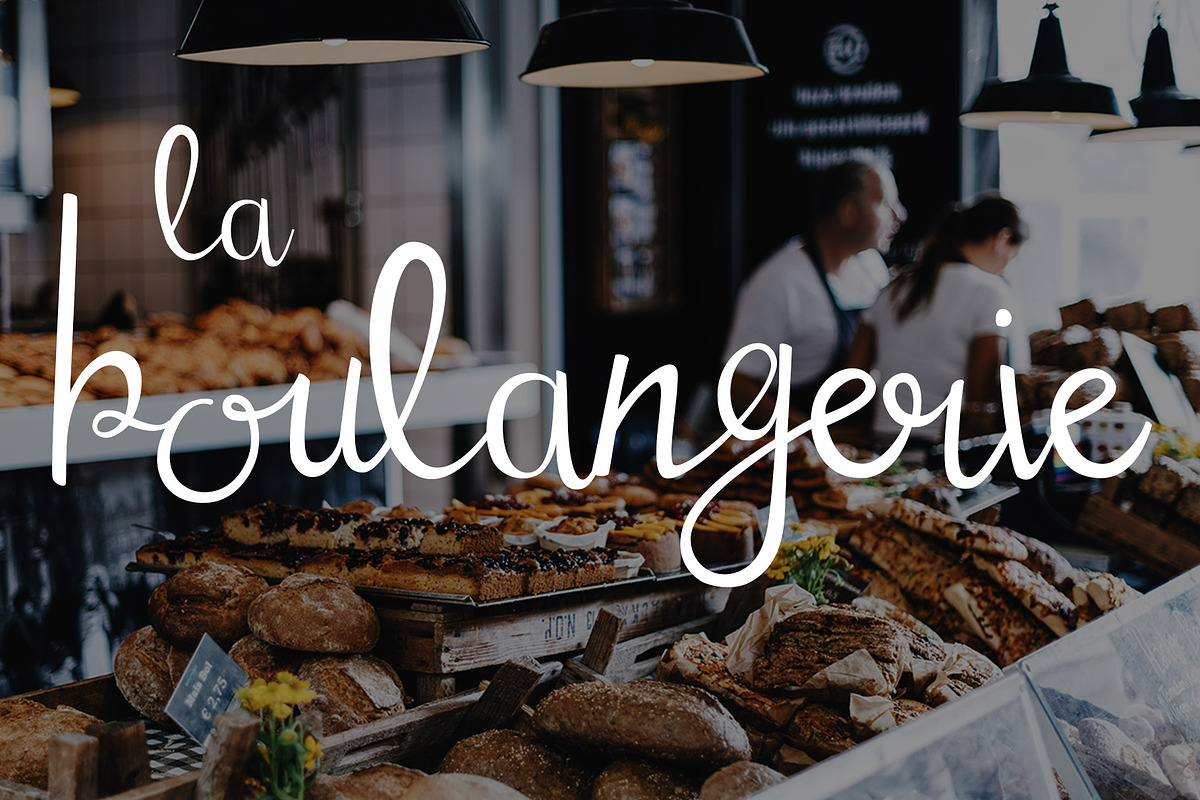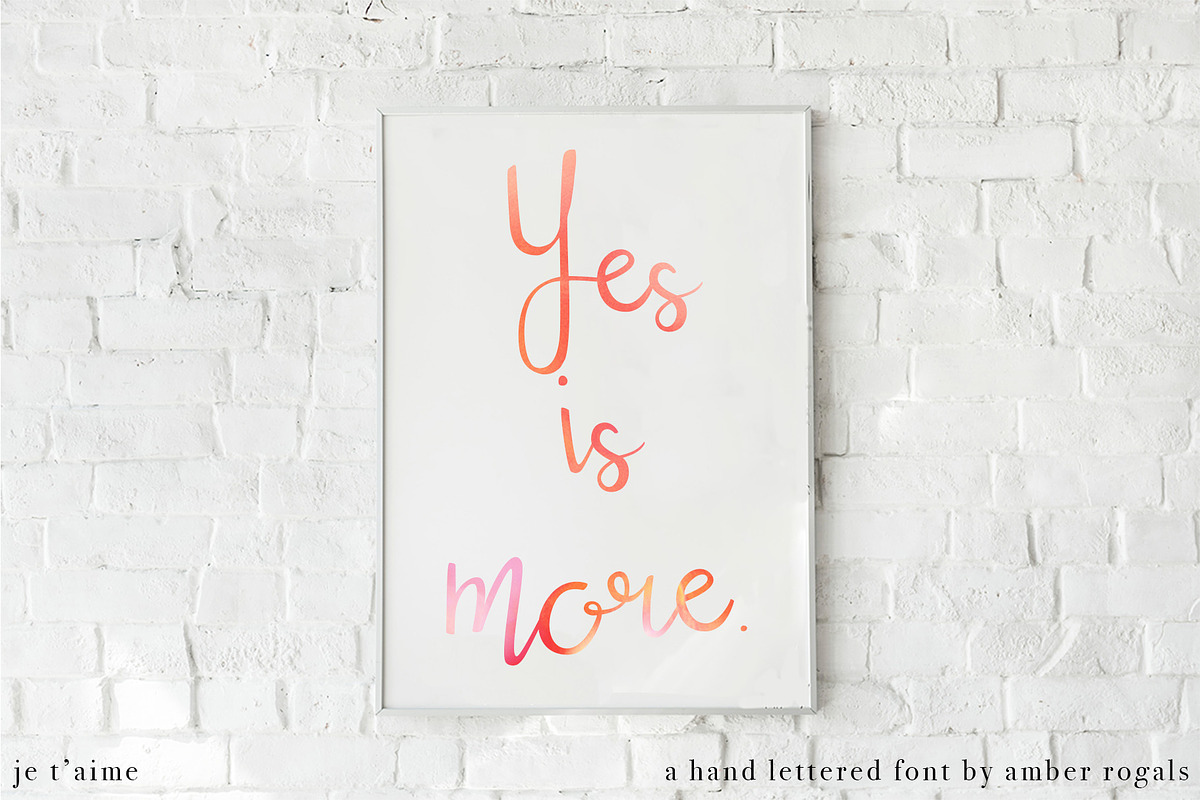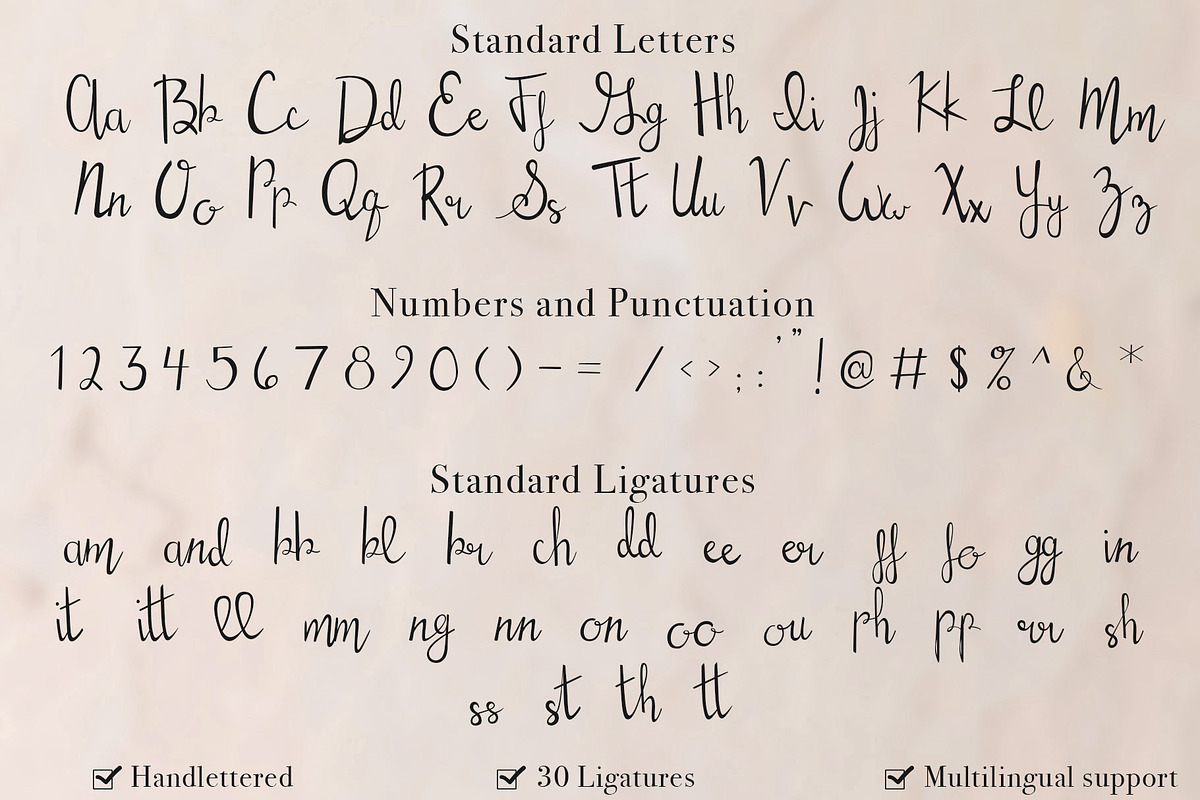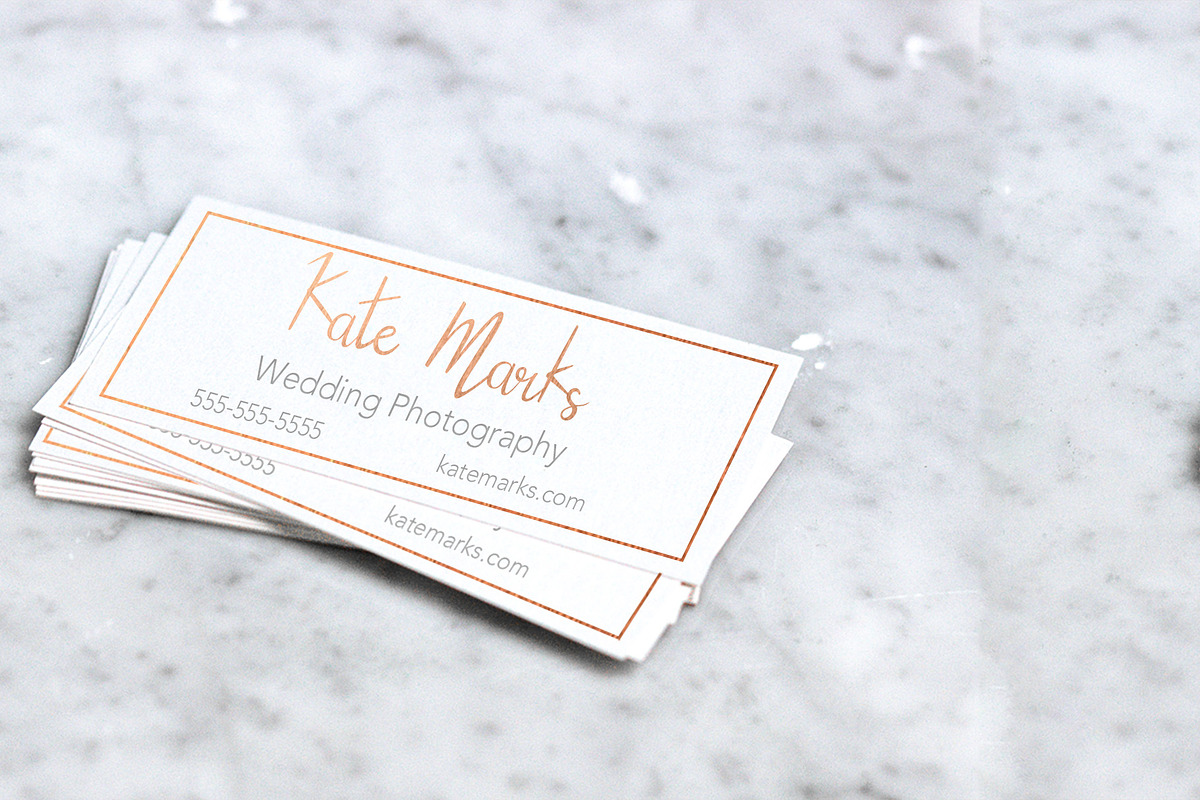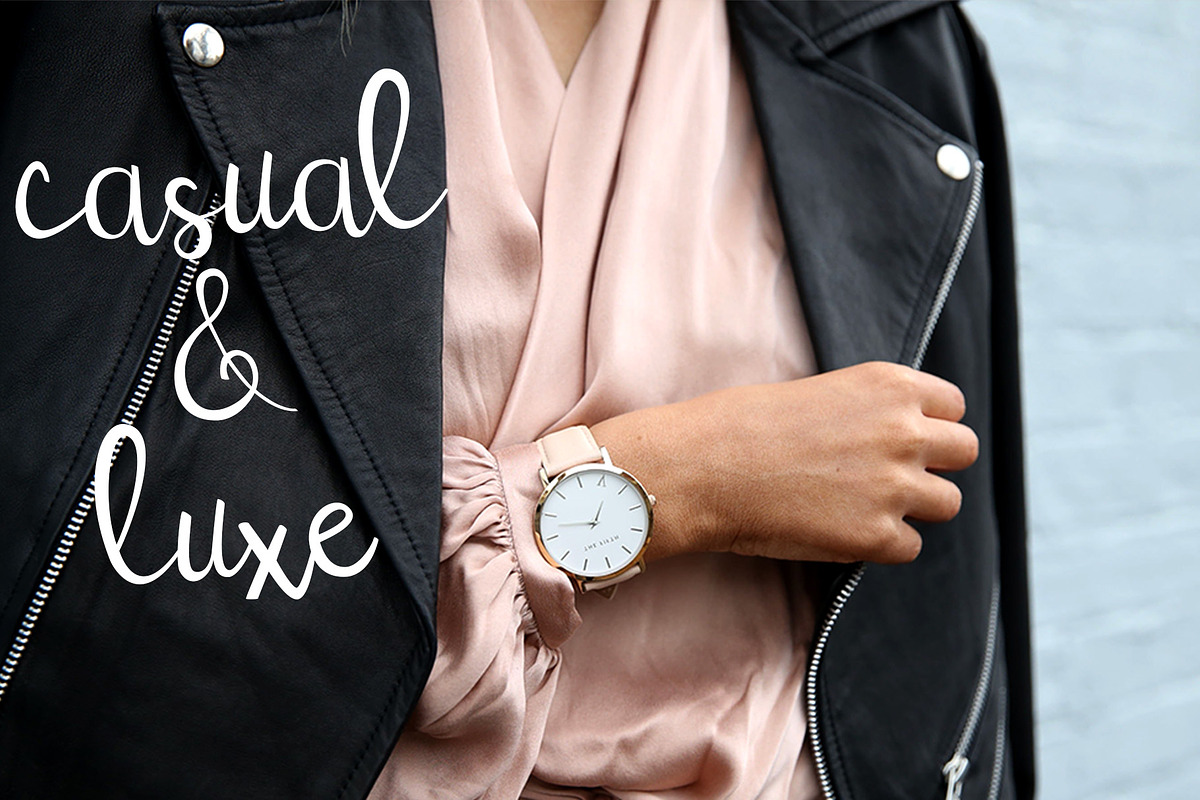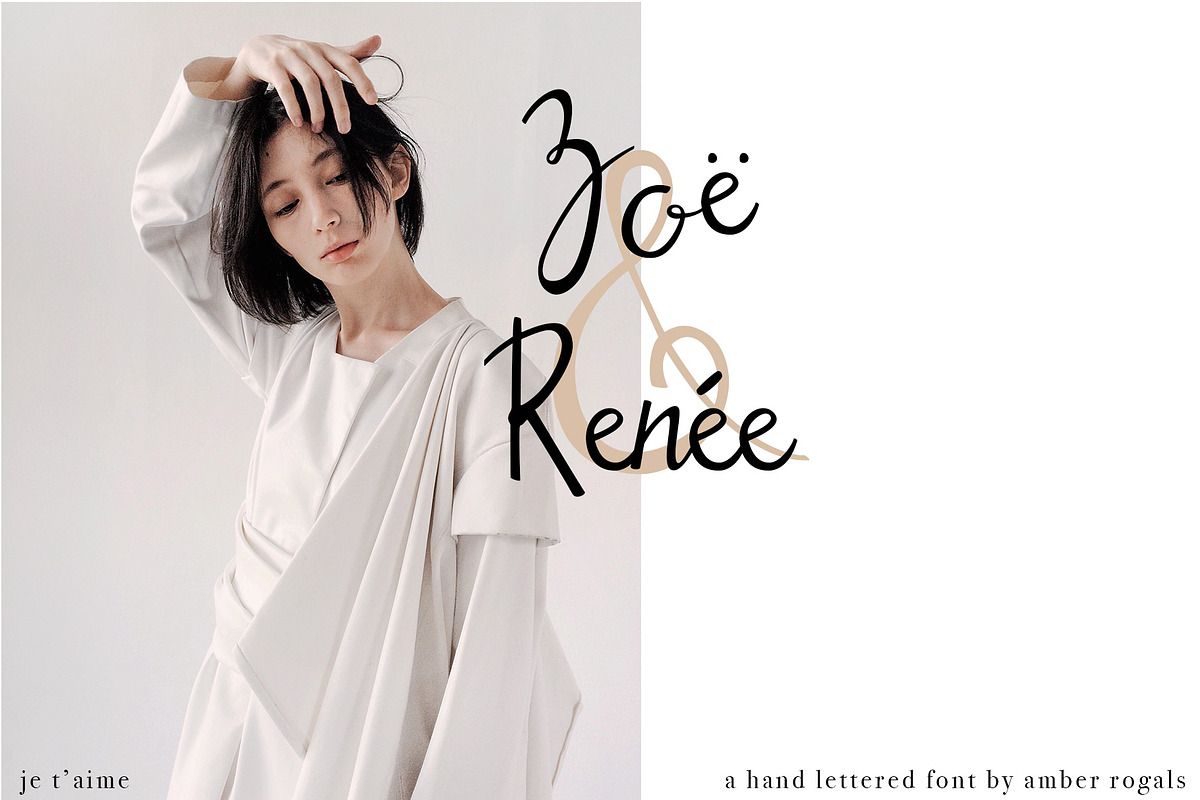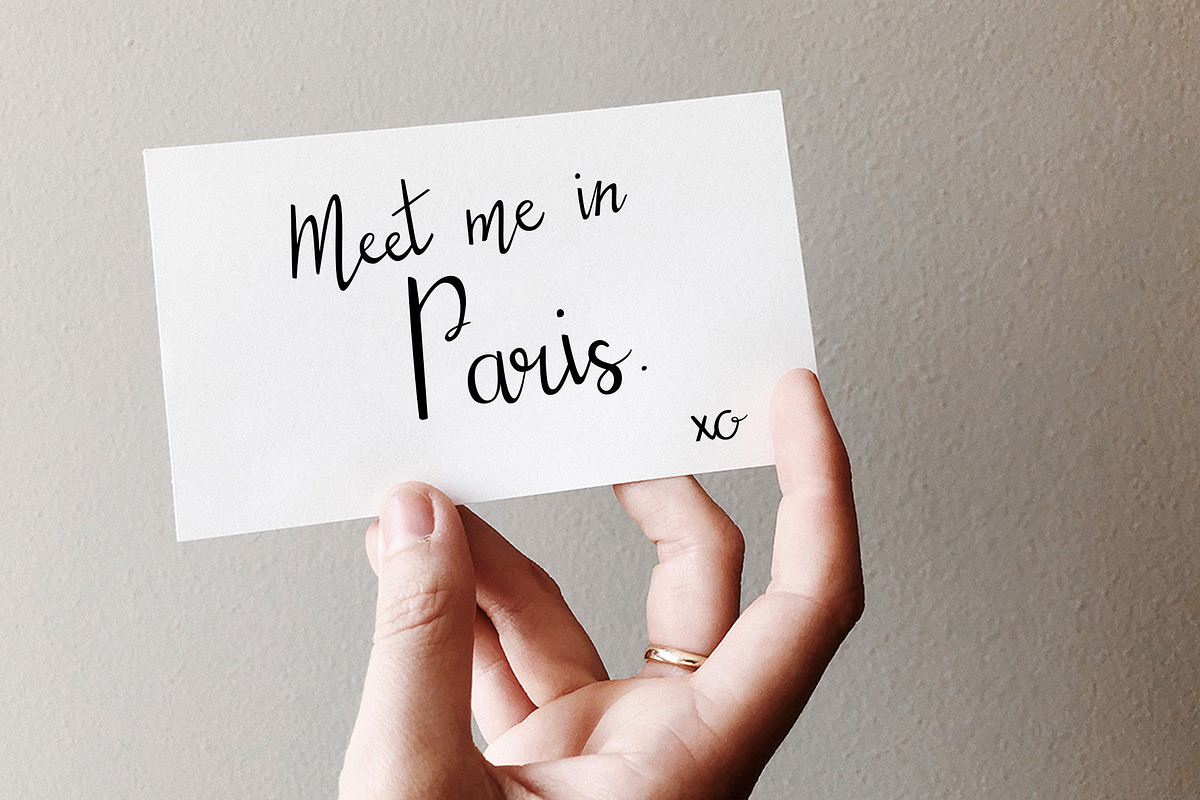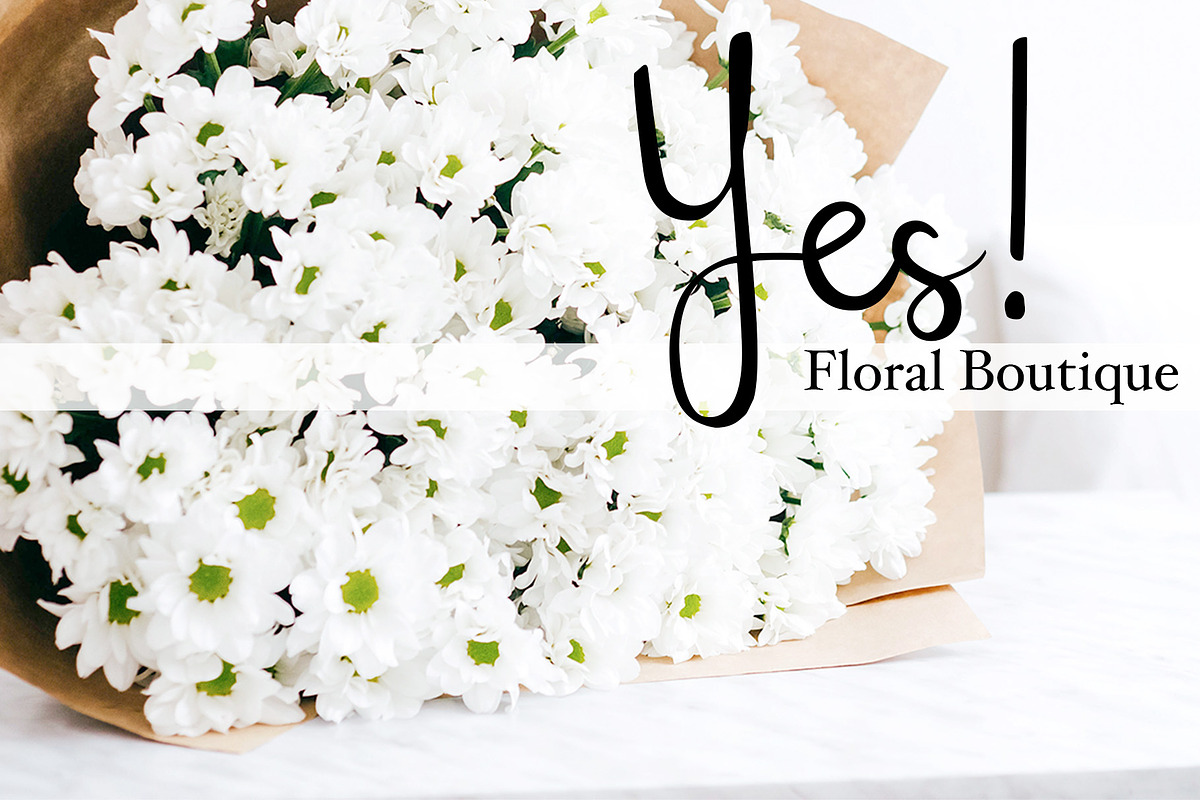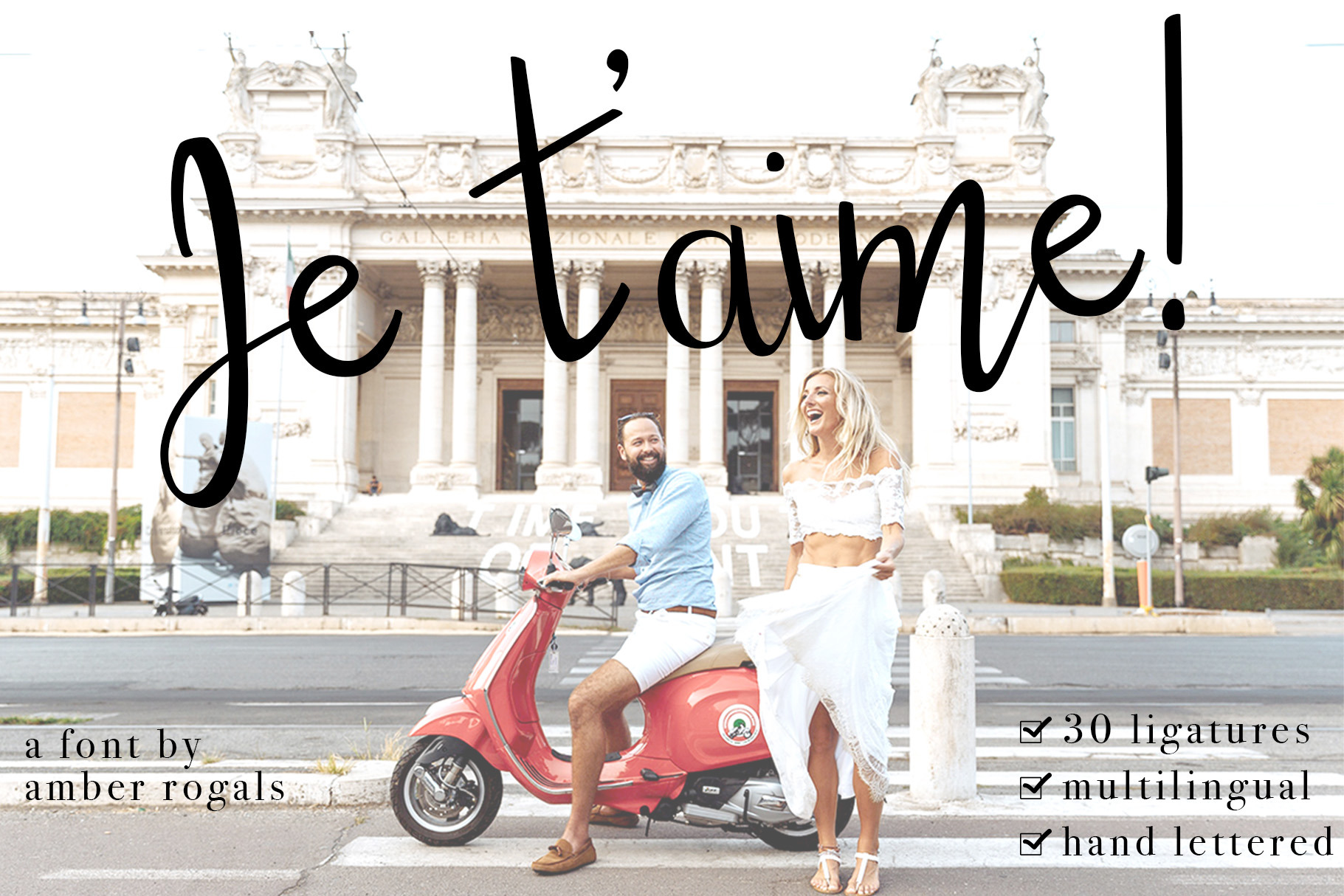
Je T'aime - A Brush Script Font
Meet Je T'aime, a beautiful and authentic hand lettered brush font! Lovely transitions, swoops and thickness variations make this font a careful mixture of casual and luxury. This font was designed with 30 additional standard ligatures, for even smoother transitions and an even more authentic hand lettered appeal.
Je T'aime is the perfect font for branding- whether it's used as the main font or the supporting font. It's also great for social media, headers, laying on top of photos and printed/custom art works such as mugs, tee shirts, posters, wedding monograms- the uses endless!